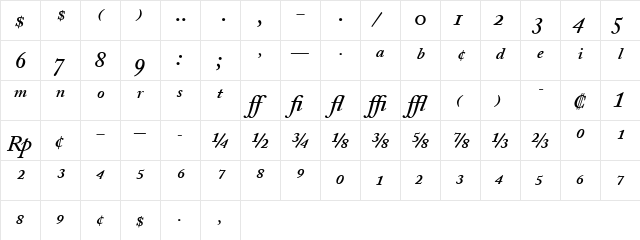
ACaslonExp Regular Bold Italic Font Preview
Design Context for ACaslonExp Regular Typeface
ACaslonExp Regular takes a measured approach to typography — its balanced proportions and neutral character make it a reliable workhorse for both digital and print work. Its italic angle brings a sense of urgency and motion to the letterforms. The heavy weight commands attention and anchors typographic hierarchies.
Pro Tip: Try ACaslonExp Regular for annotation and caption copy alongside an upright companion — the contrast in angle creates a dynamic but ordered typographic system.